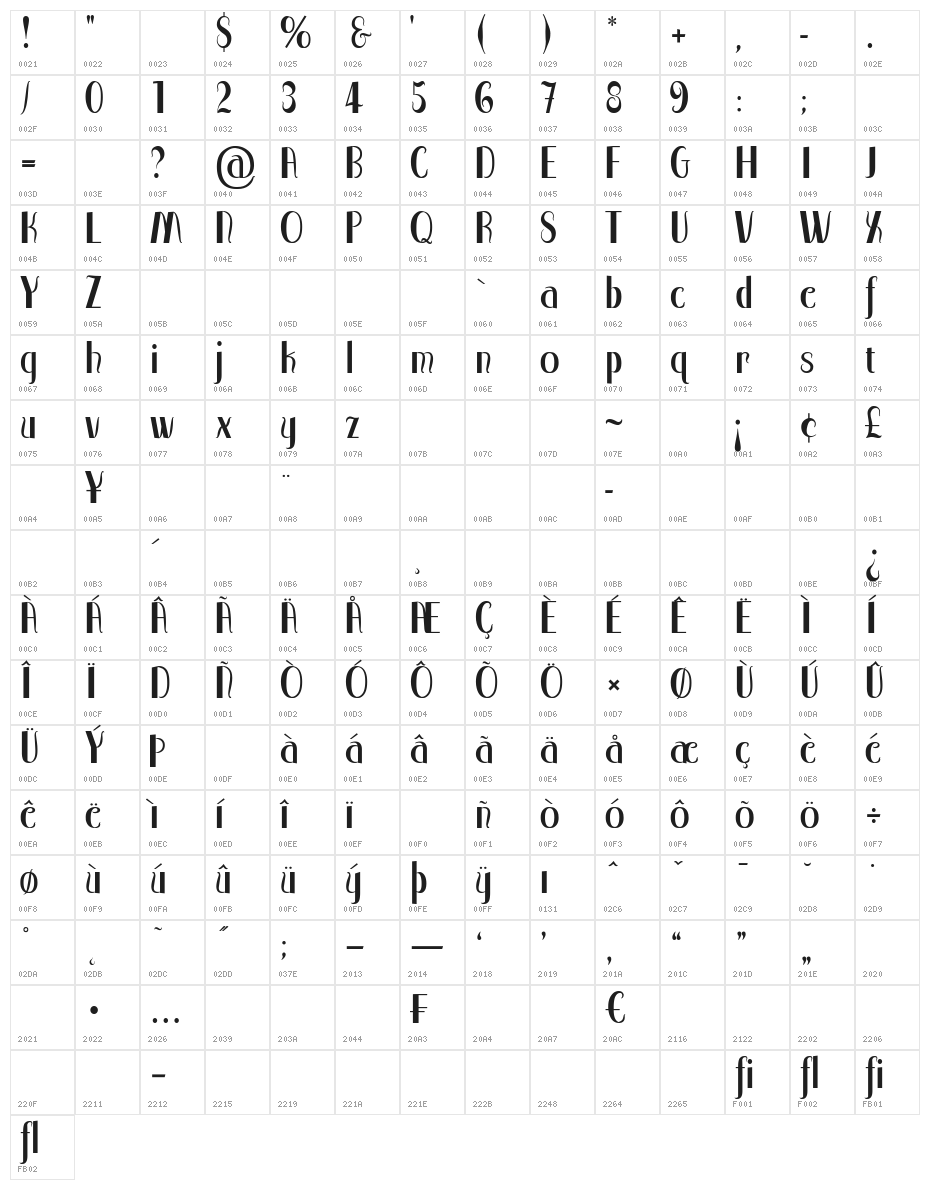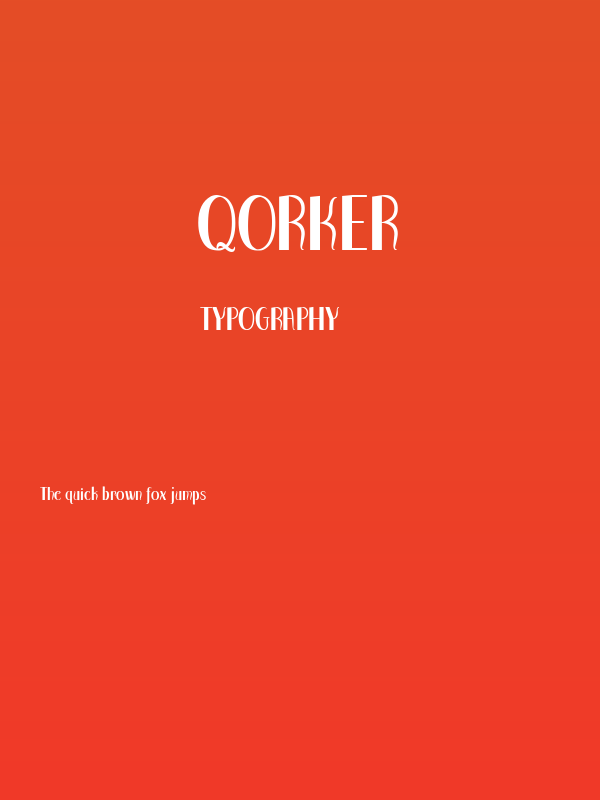
Qorker Font
Qorker Description
This font features a unique blend of modern and vintage styles, characterized by its bold, flowing curves and sharp edges. The uppercase letters exhibit a strong presence with their tall, narrow forms and subtle serifs, while the lowercase letters maintain a consistent flow with rounded shapes and slight variations in stroke width. The numerals are distinct and easily readable, with a playful yet sophisticated design. Special characters are well-integrated, maintaining the overall aesthetic. This font is ideal for projects that require a touch of elegance and creativity.
| Overall Style | Modern, Vintage |
| Proposed Projects | Ideal for branding, posters, headlines, and creative design projects. |